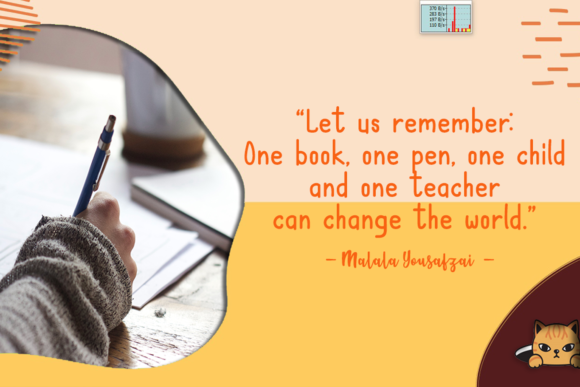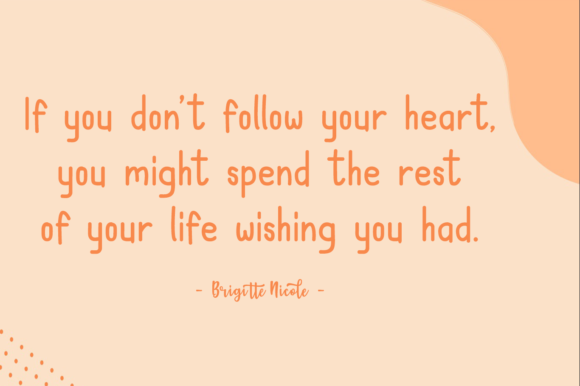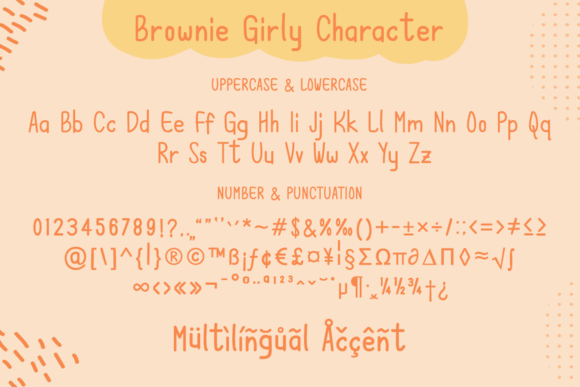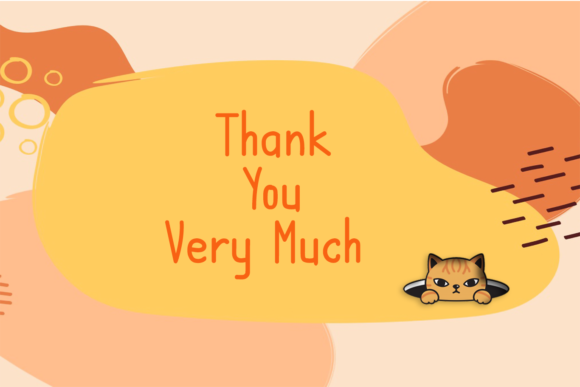
Brownie Girly Font
About Brownie Girly Font
Brownie Girly is a magical scriptfont carefully created with a touch of elegance. This is a beautiful combination of timeless elegance and authentic calligraphy. It features an incredibly classic style, while still keeping a friendly feel. Brownie Girly is the perfect font for making original and outstanding designs.